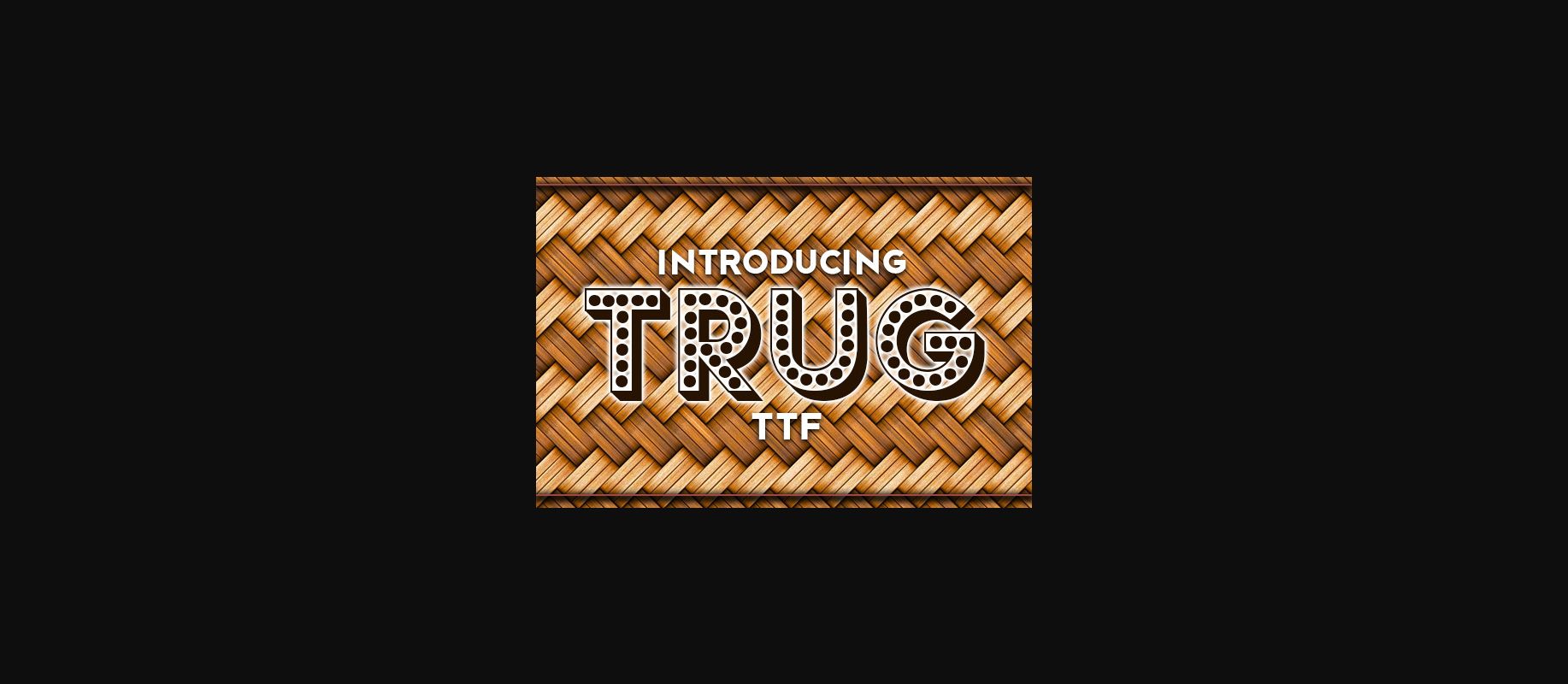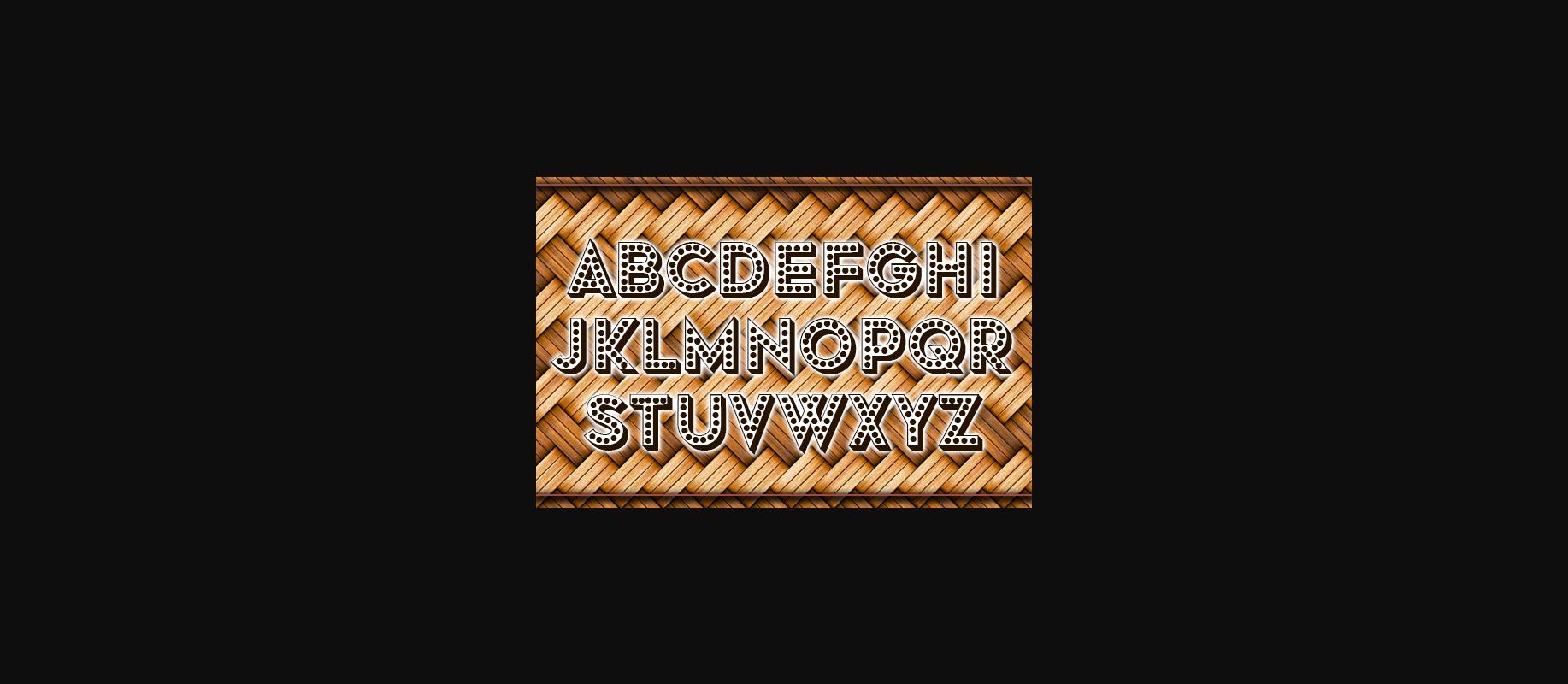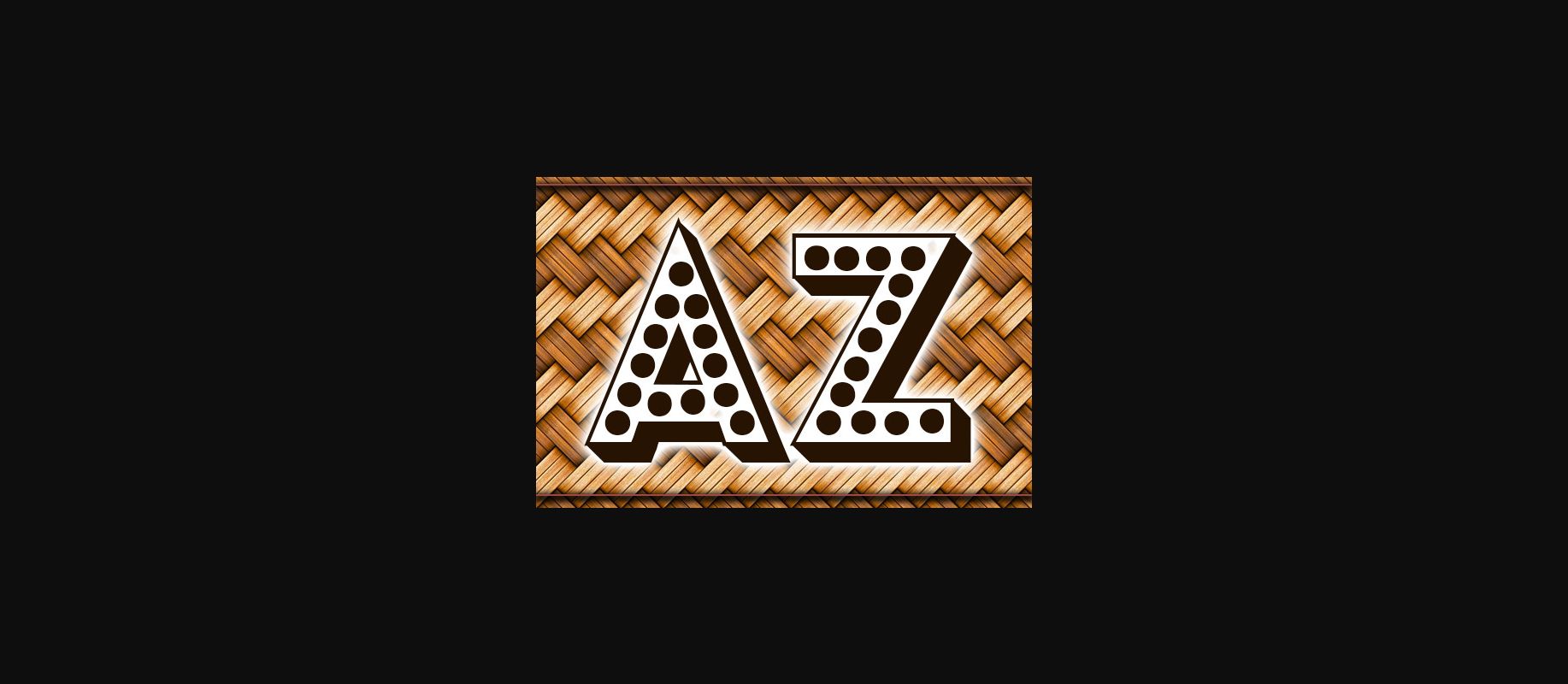
About Trug Font
Trug is a stylish and cool decorative font that will make your designs look incredible.
Use this font on flyers, posters, and t-shirts.